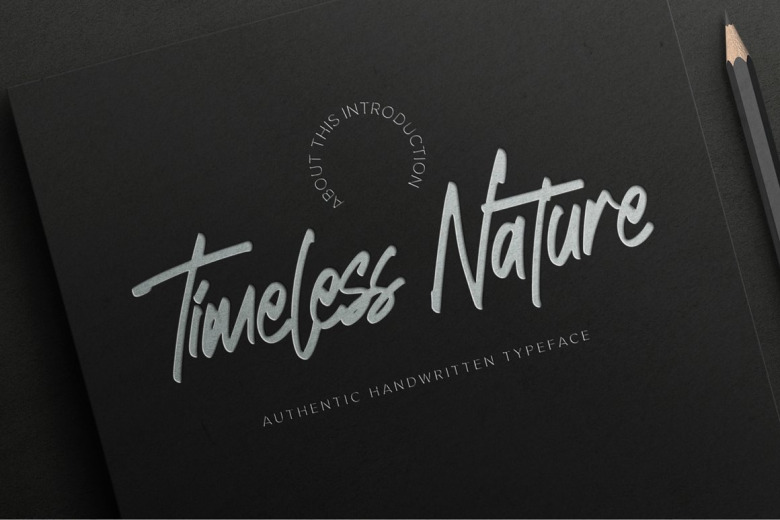
Timeless Nature Font
Timeless Nature – Authentic Natural Handwritten Typeface Font that will make your designs look modern, unique and fun. It’s perfect for labels, quotes, posters, DIY projects, branding, packaging, greeting cards, websites, photography overlays, signs, window art, scrapbooking, tags and so much more!
Timeless Nature Handwritten Font